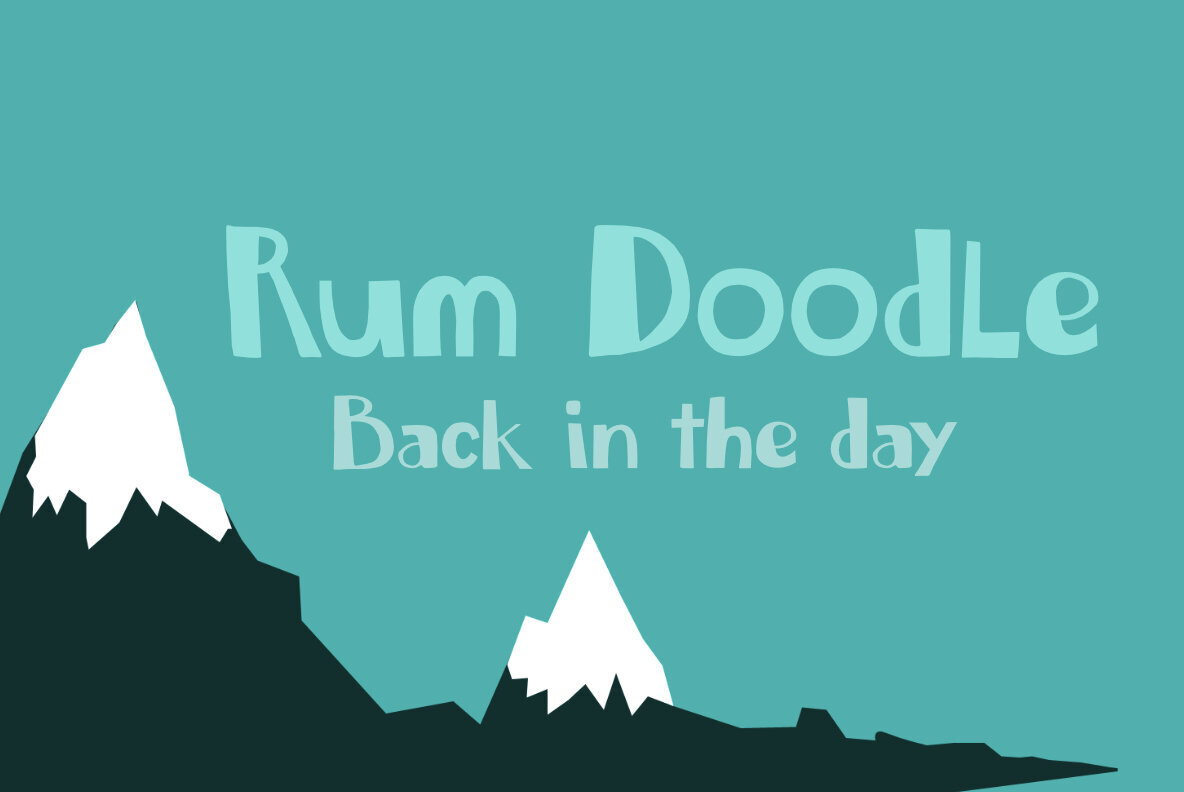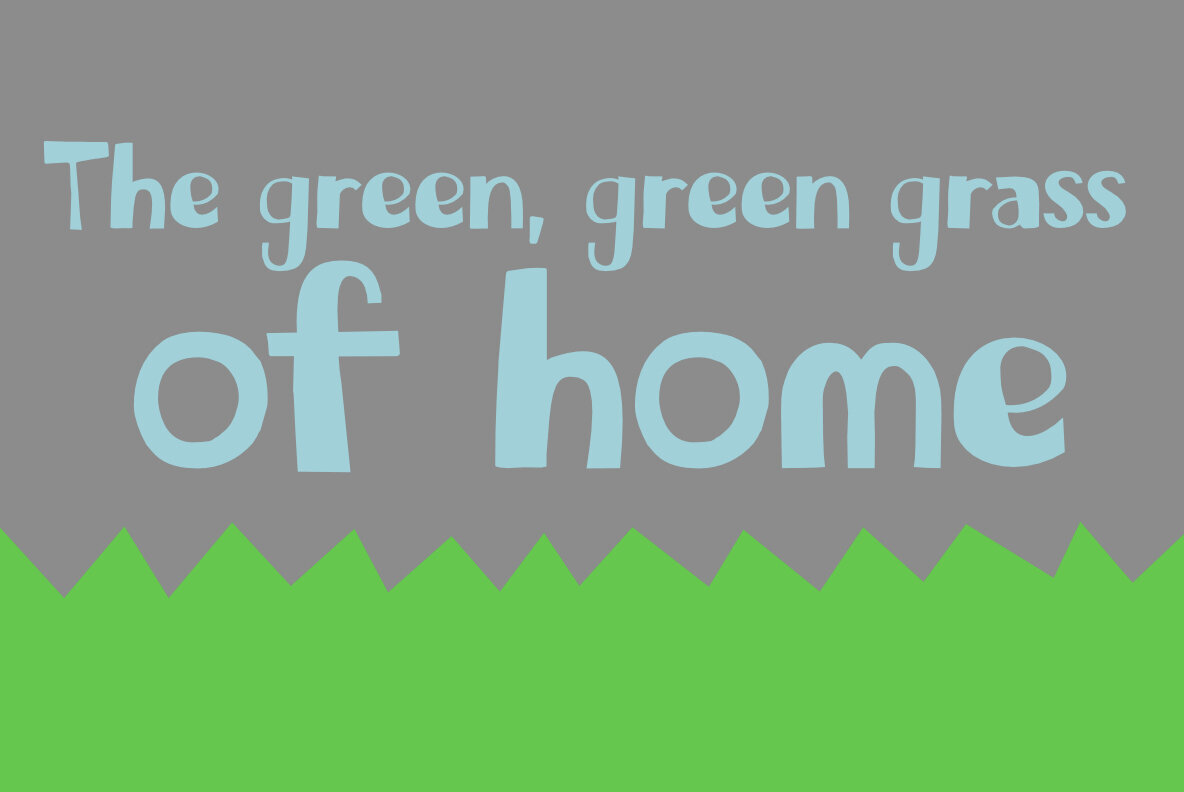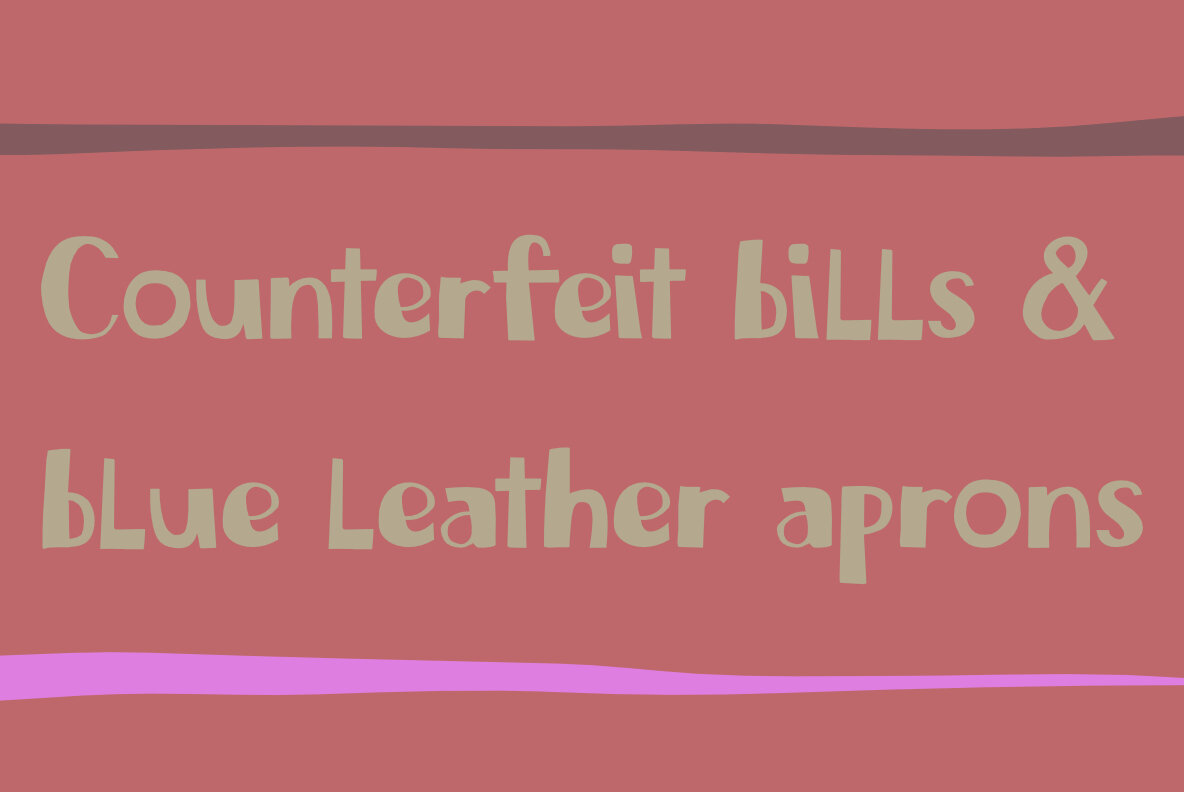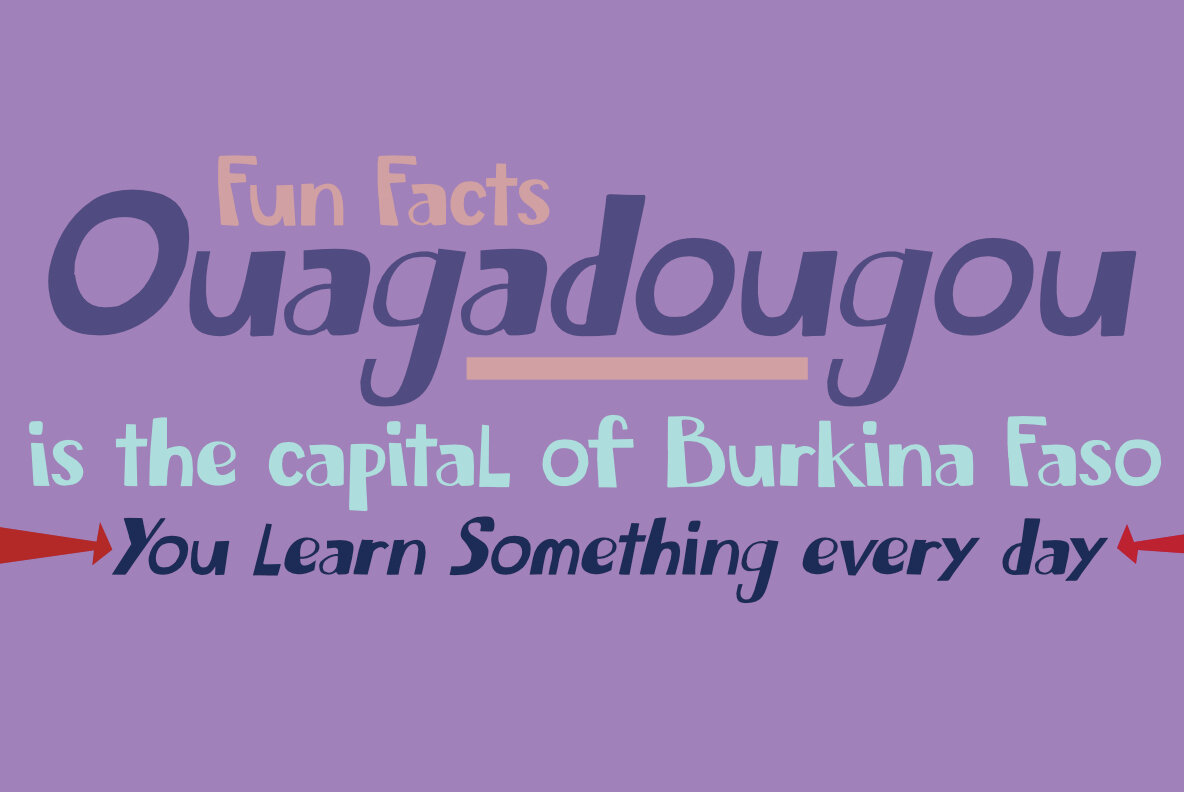
Chew On This Font
Chew On This Regular
Chew On This Italic
Back in 2013 I released an all caps font called Rum Doodle. Rum Doodle is a really nice, really weird font with angular glyphs and a unique look. I decided that it would be nice to tweak this font a bit and design a lower case for it. The result is Chew On This. I chose that name for no apparent reason - so don’t make a fuss about it…